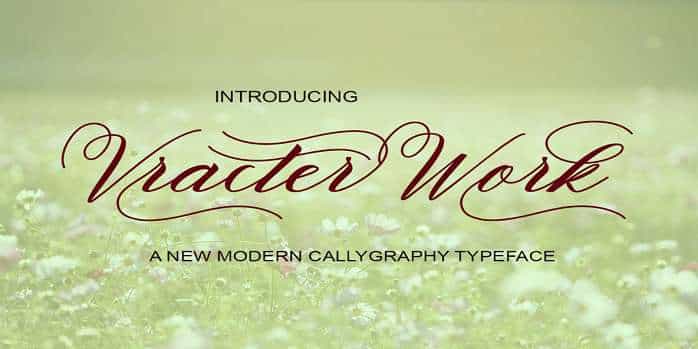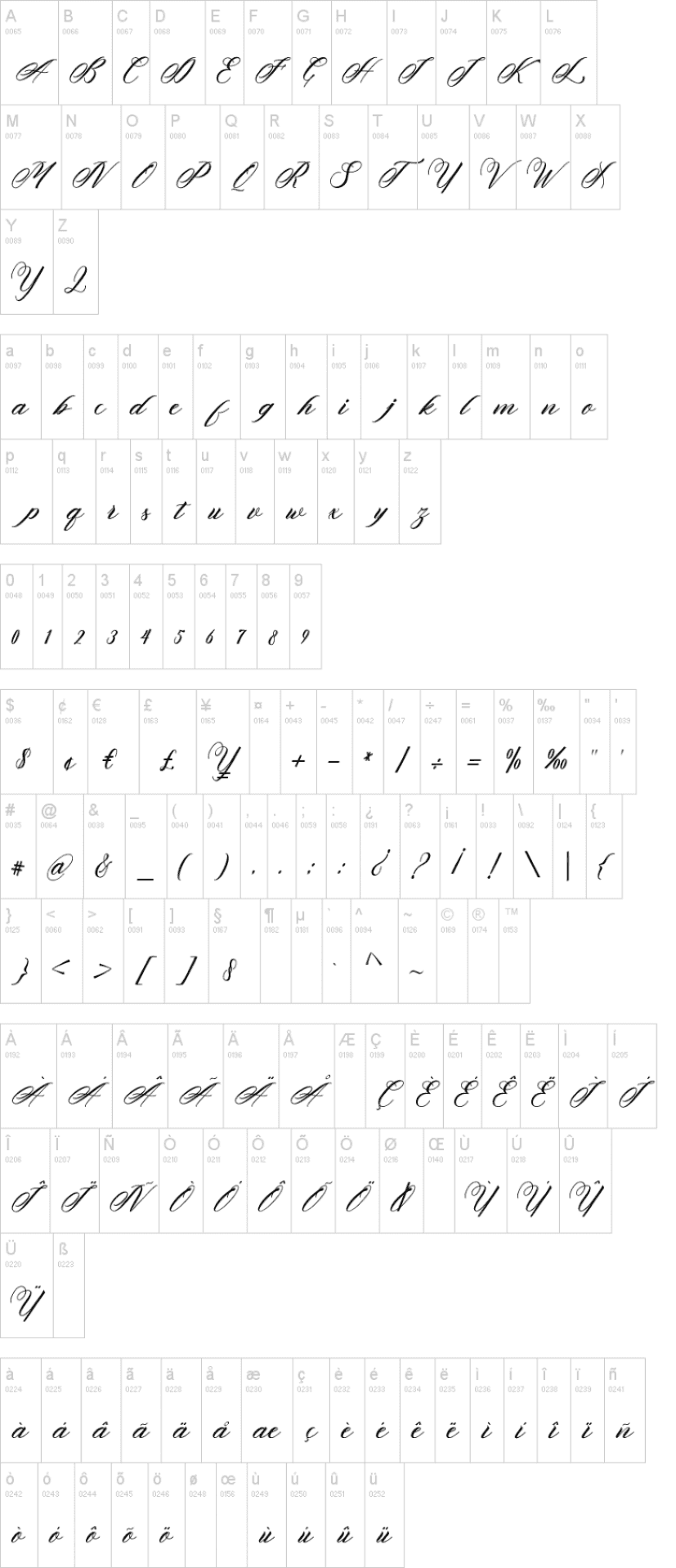
Discover Vracter Work Font, part of the Calligraphy collection—a versatile and unique font perfect for adding a personal touch to your projects. Download it for free and enjoy crafting designs with style, from invitations to social media posts. This font is available exclusively for personal use, giving you the freedom to create without limits. Unlock your creativity with Vracter Work Font today!
The Vracter font duo is a stylish calligraphy duo:It has sleek looks and can be applied to any project that needs that extra bit of style. It is available with over 549+ glyphs and 347 alternates.